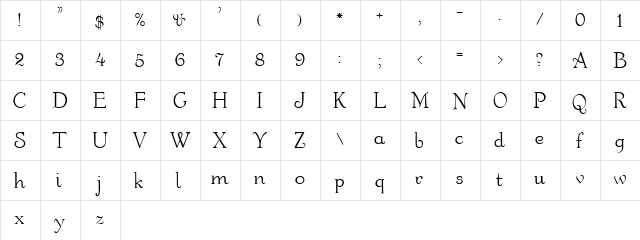
Orange Normal
Design Context for Orange Typeface
Orange offers clean, dependable letterforms without strong stylistic allegiance, making it a practical choice for designers who need flexibility.